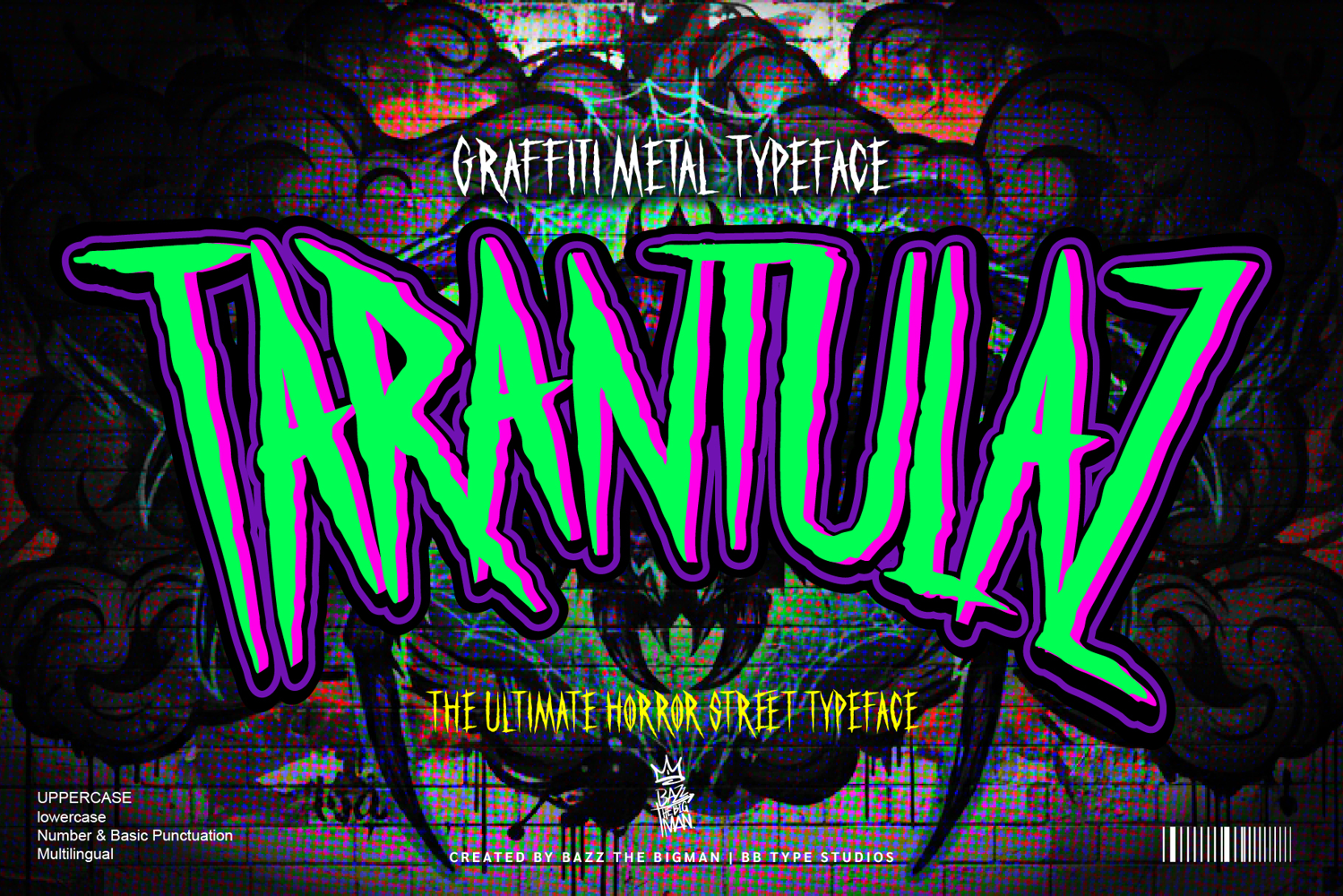
Unleash the Venom. Embrace the Chaos.
Are you ready to inject raw, aggressive energy into your design projects? TARANTULAZ is a high-impact Display Typeface forged in the darkness of the urban jungle, perfect for crushing the competition with its intimidating, razor-sharp style. Inspired by Metal Album Covers, Gritty Street Art, and Classic Horror Films, TARANTULAZ is not just a font—it’s an auditory assault translated into type.
🕷️ PERFECT FOR YOUR DARKEST PROJECTS:- Metal & Rock Music: Album Covers, Band Logos, Merchandise (T-Shirts, Hoodies).
- Horror & Halloween: Movie Posters, Haunted House Promotions, Scary Game Titles.
- Streetwear & Urban Culture: T-Shirt Design, Apparel Branding, Graffiti-Style Graphics.
- Extreme Sports: Event Posters and Ad Campaigns that demand attention.
⚡ KEY FEATURES & WHAT YOU GET:- RAZOR-SHARP DESIGN: Features aggressive, jagged edges and a venomous aesthetic that screams danger and power.
- DUAL IMPACT (UPPER & LOWER): Includes a complete set of Uppercase and a meticulously designed Lowercase set that retains the aggressive style while improving usability.
- FULL CHARACTER SET: Comprehensive support for Numerals (0-9), Basic Punctuation, and Multilingual characters (Latin Extended) to maximize global reach.
Note: The beautiful warping and curving effects seen in the presentation images are achieved using basic tools in your design software and demonstrate the full potential of this powerful typeface.
Don't settle for mild. Choose the font that bites back. TARANTULAZ.